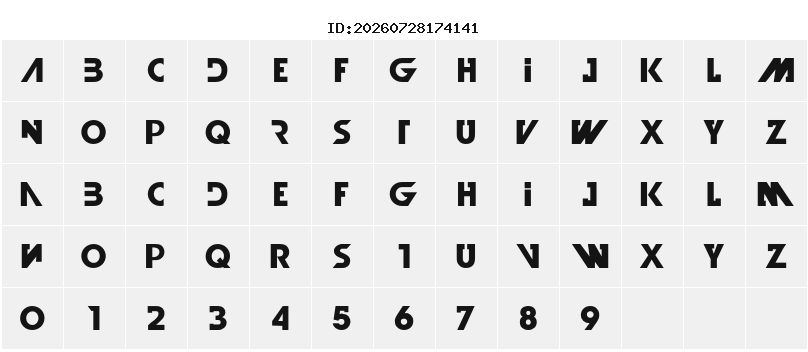
Illegal Curves Preview
• Font Name: Illegal Curves
• Manufacturer: Wesley Pastrana Rosado(Weslo GFx)
About Illegal Curves.otf
Illegal Curves.otf is a modern, elegant sans-serif font designed for ultimate readability and visual harmony. Perfect for branding, headlines, web design, and print materials.